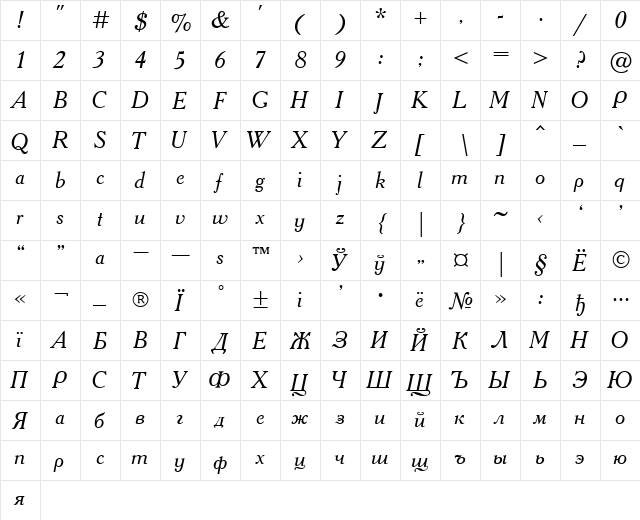
Academia Italic
Design Context for Academia Typeface
Academia is a composed and adaptable typeface that performs quietly and consistently across a wide range of design contexts. The dynamic lean of this cut emphasises speed and emphasis in any layout.
Pro Tip: Try Academia for annotation and caption copy alongside an upright companion — the contrast in angle creates a dynamic but ordered typographic system.